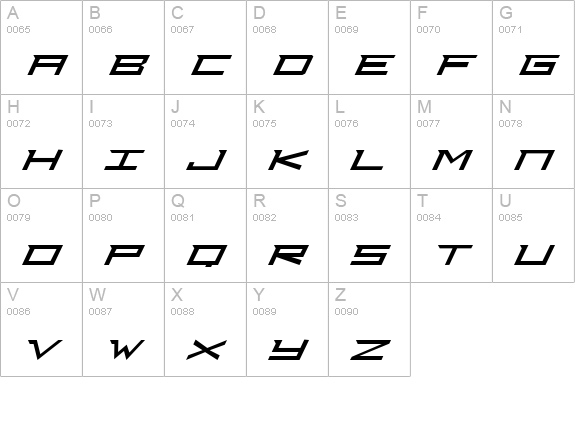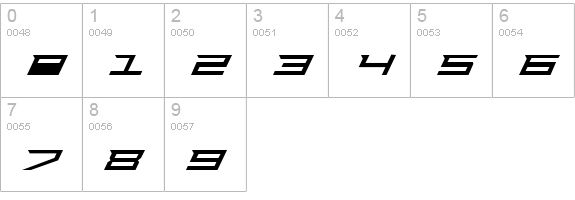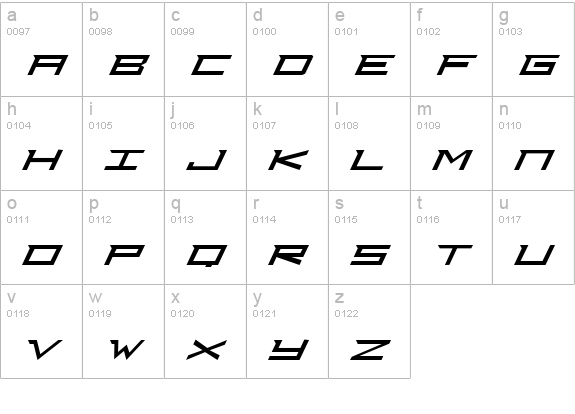
Dj Courageous Font Details
Introducing Dj Courageous font, a bold and dynamic typeface that exudes strength and confidence. With its unique design, Dj Courageous is perfect for making a statement in your projects. This powerful font is free to download at FontsMarket.com, making it accessible to all designers looking to add a touch of courage to their work. Let Dj Courageous font empower your designs and elevate your creativity to new heights.